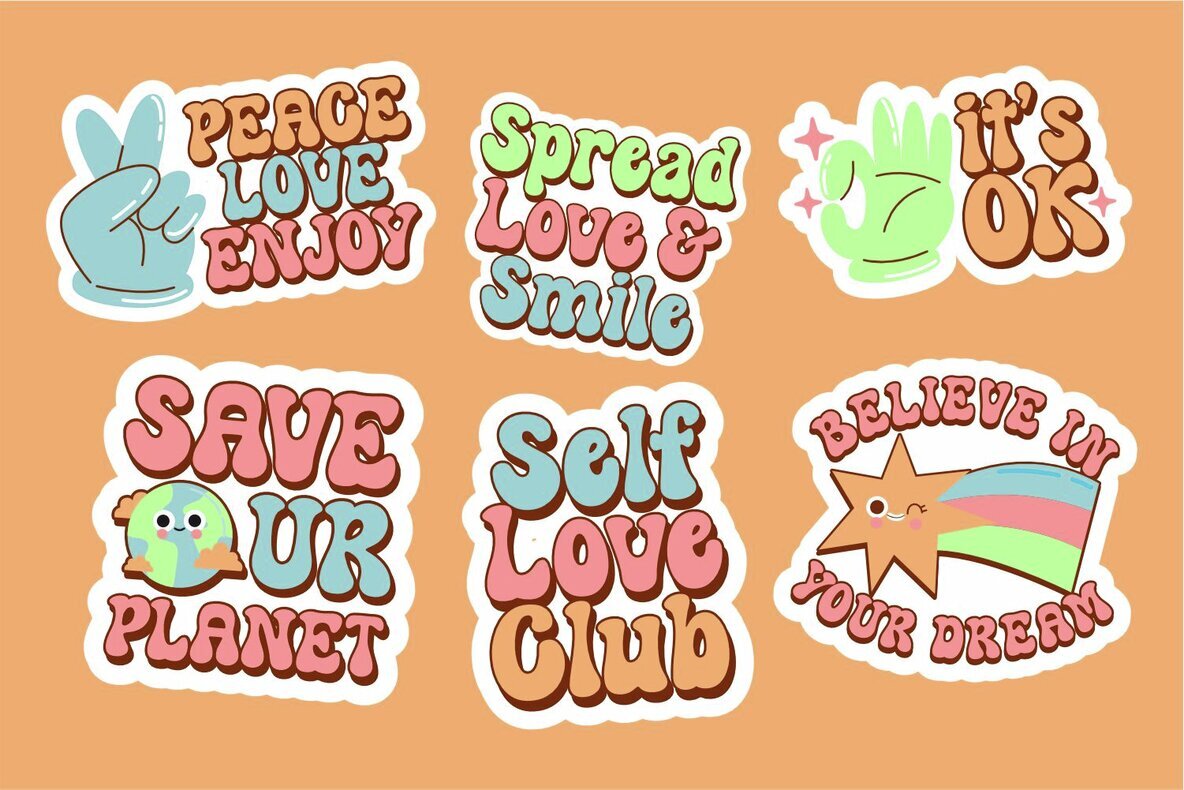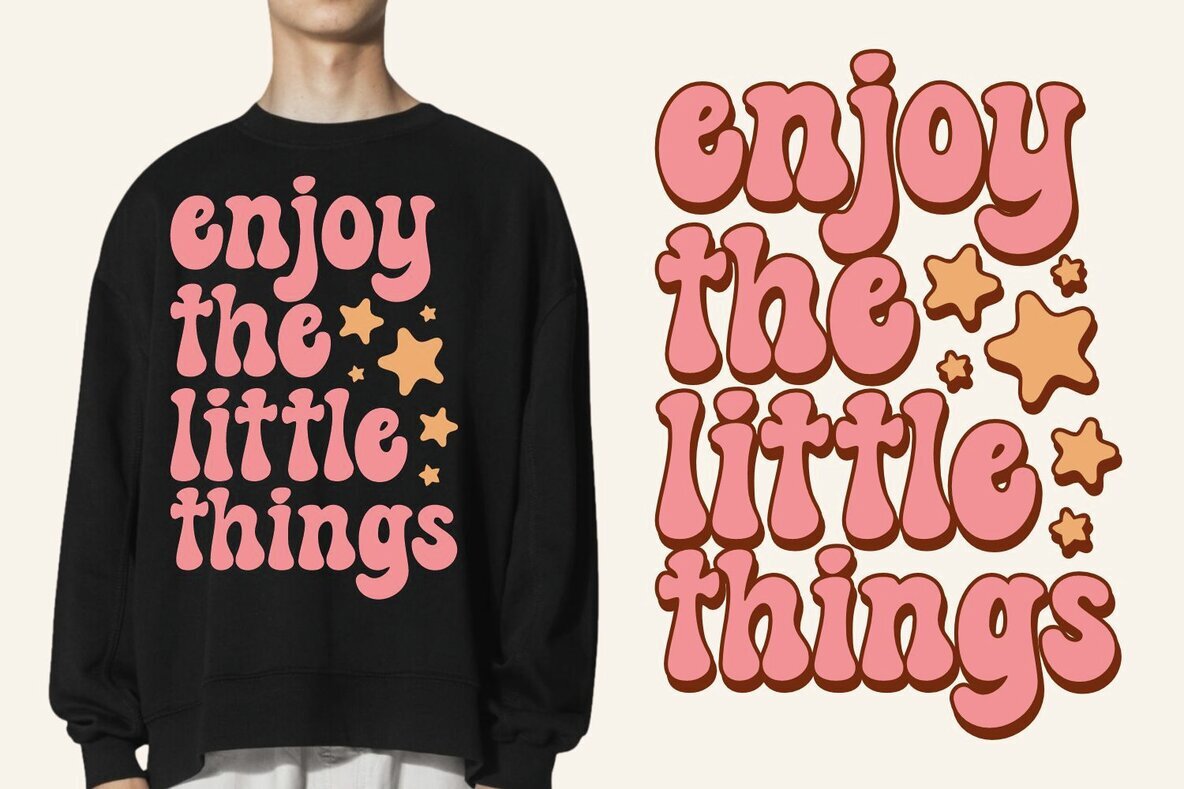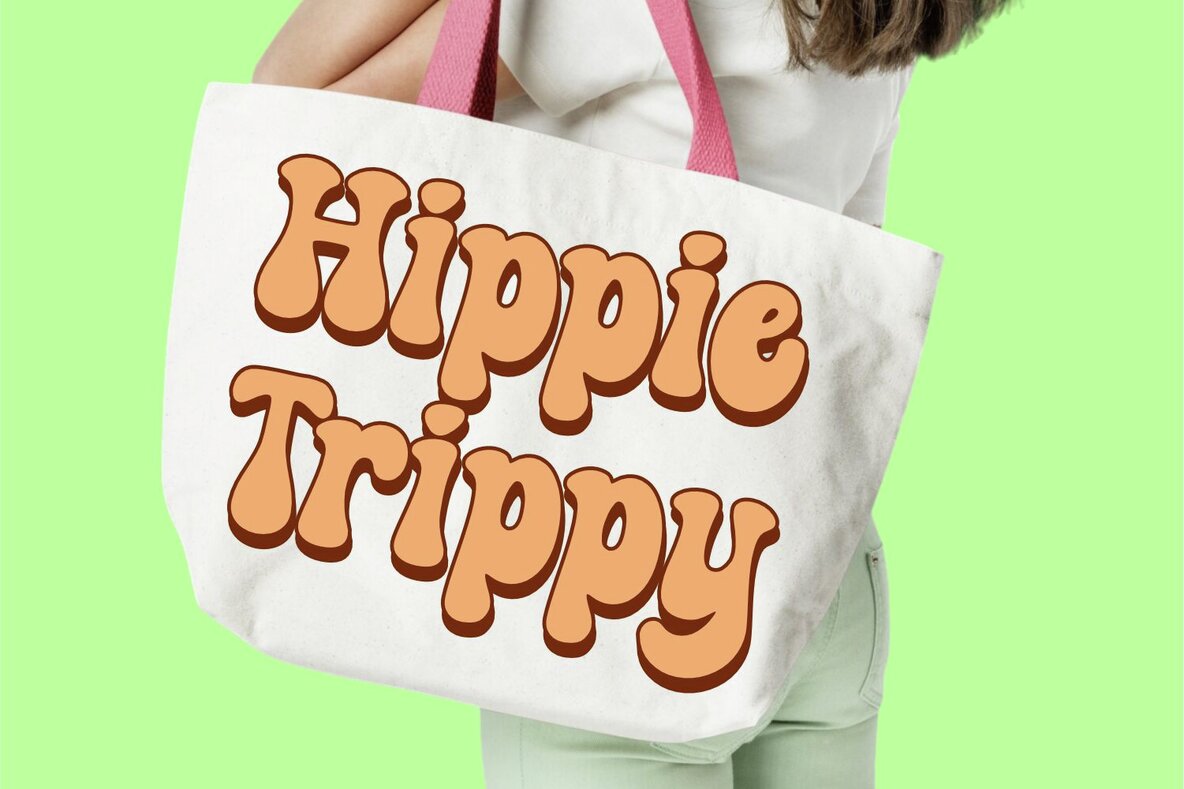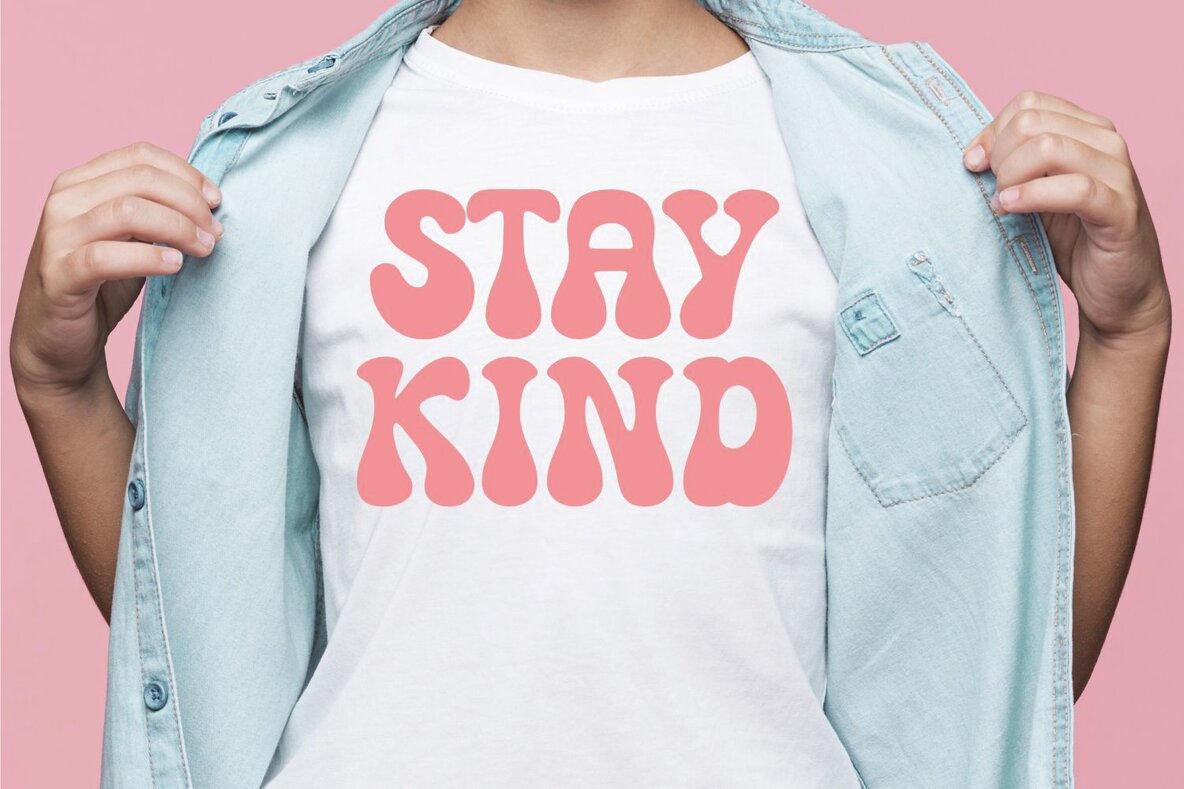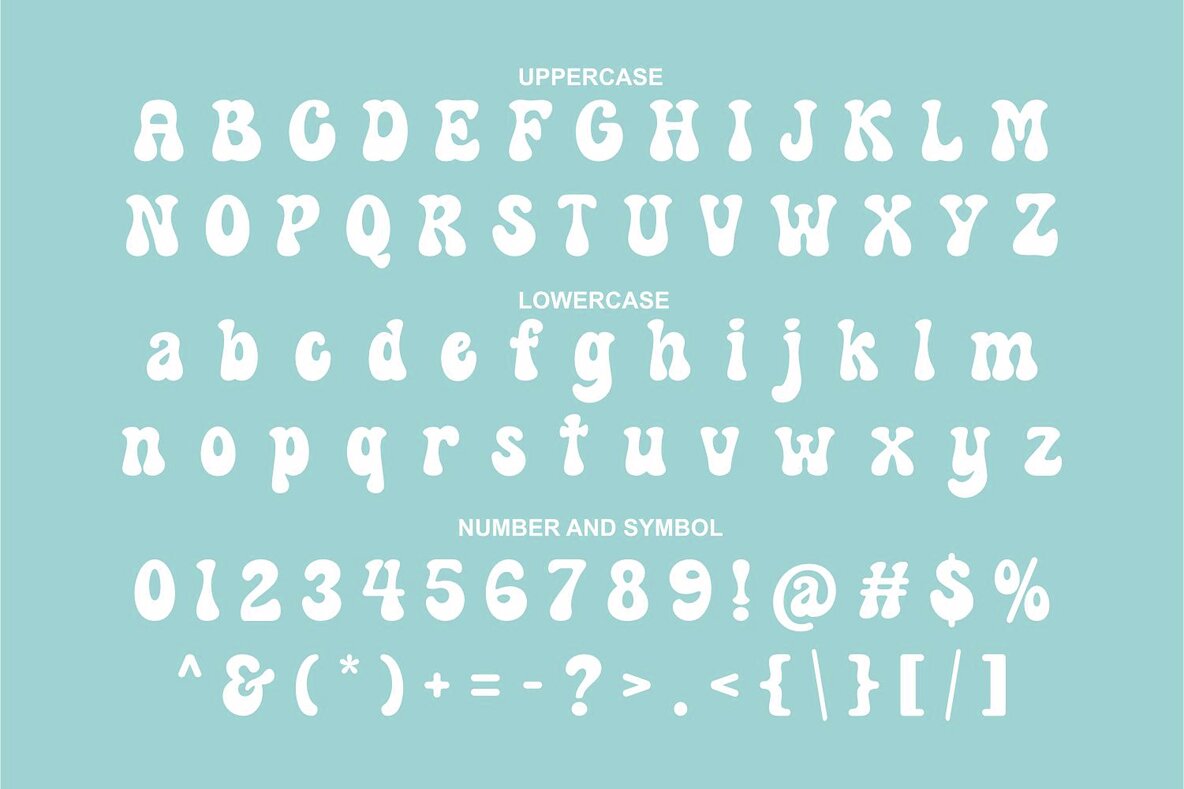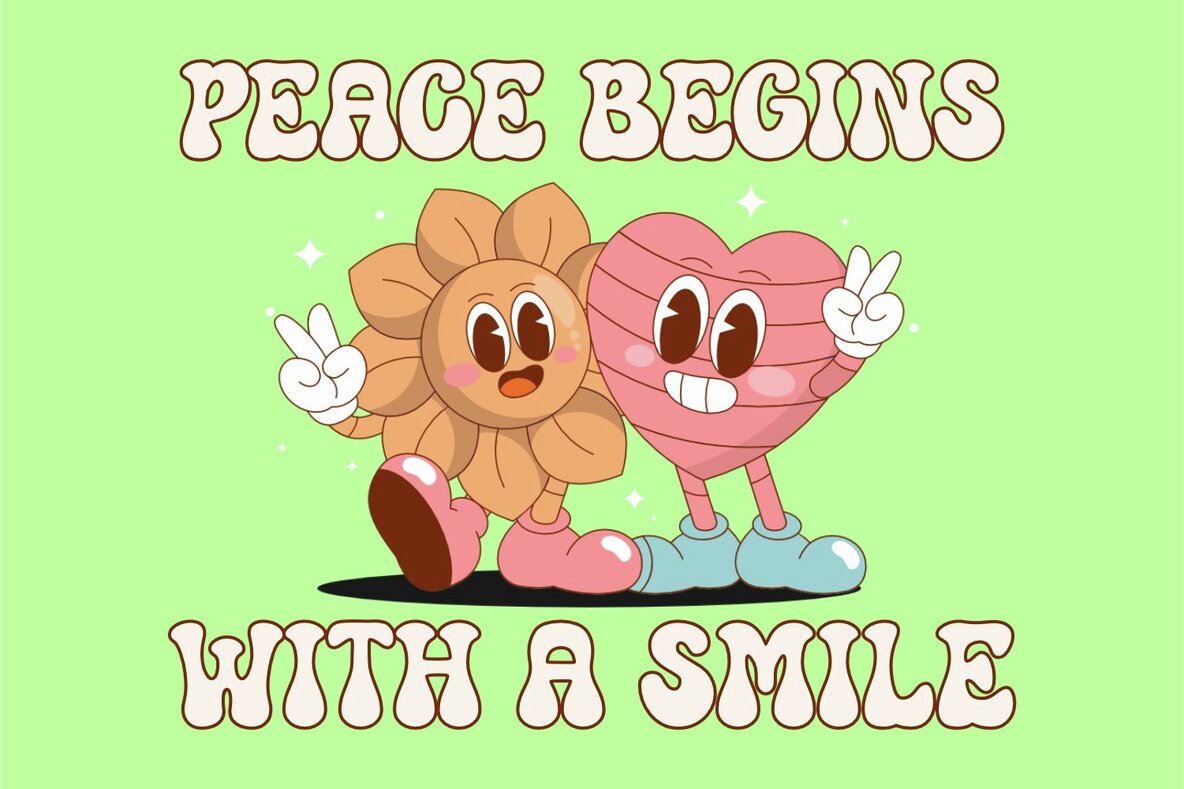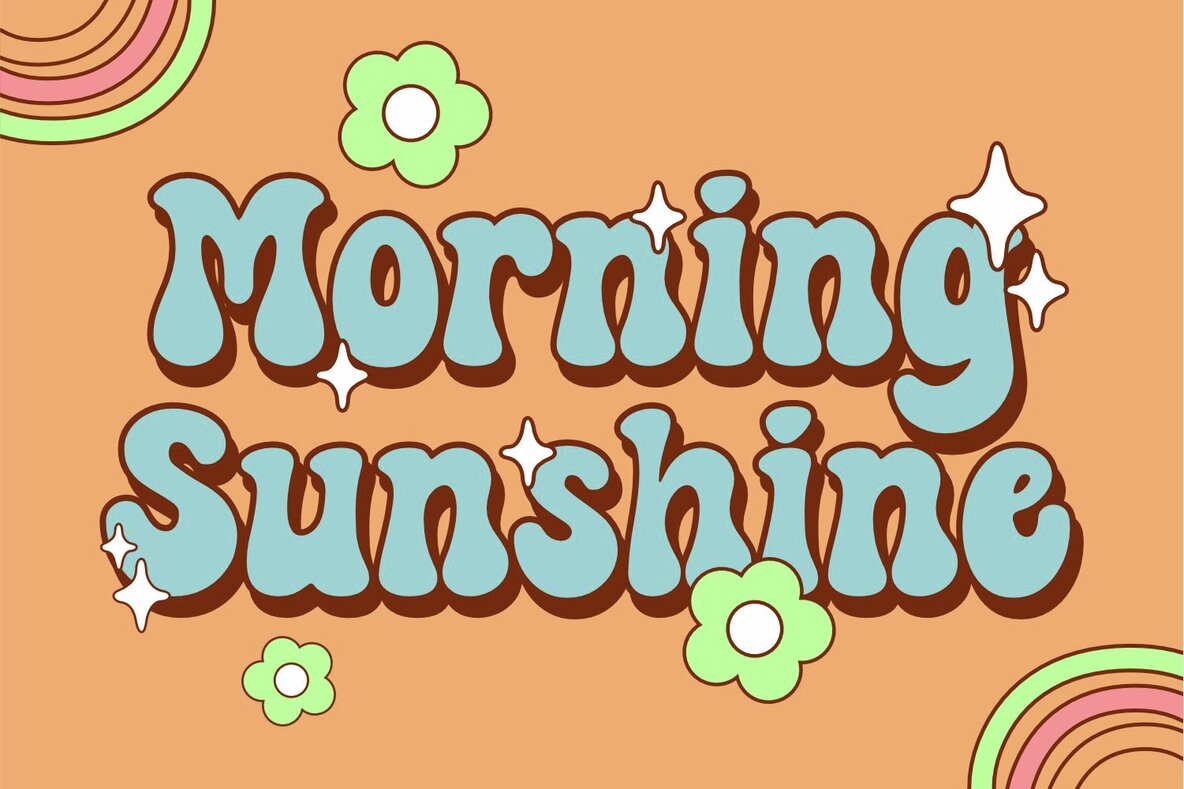
Retro Magic Font
Retro Magic
Retro Magic is a dynamic retro display font, ideal for a vast range of applications. Whether on greeting cards, headlines, or your creative projects, this font adds a touch of romance and exquisiteness to your designs.Retro Magic: Versatile Style with Playful Charm
Applications and Features